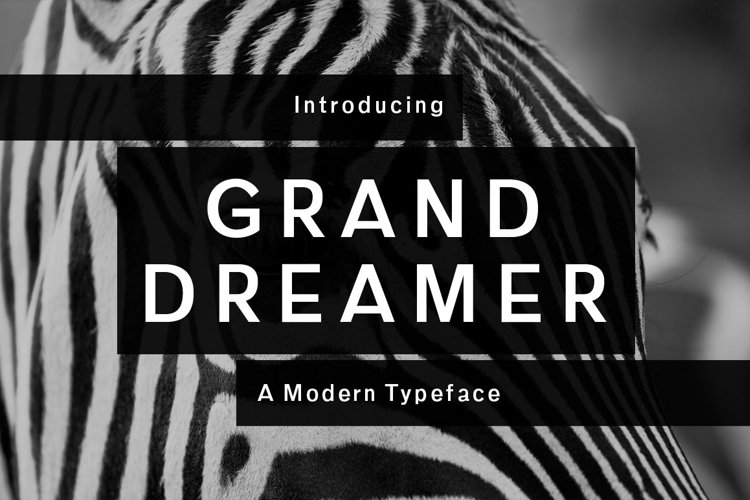
Introducing Grand Dreamer!
Grand Dreamer is a fresh & modern font. Grand Dreamer is perfectly suited to stationery, logos, t-shirt, paper, print design, website header, photo frame, flyer, music cover, poster, image slider and much more.Features: